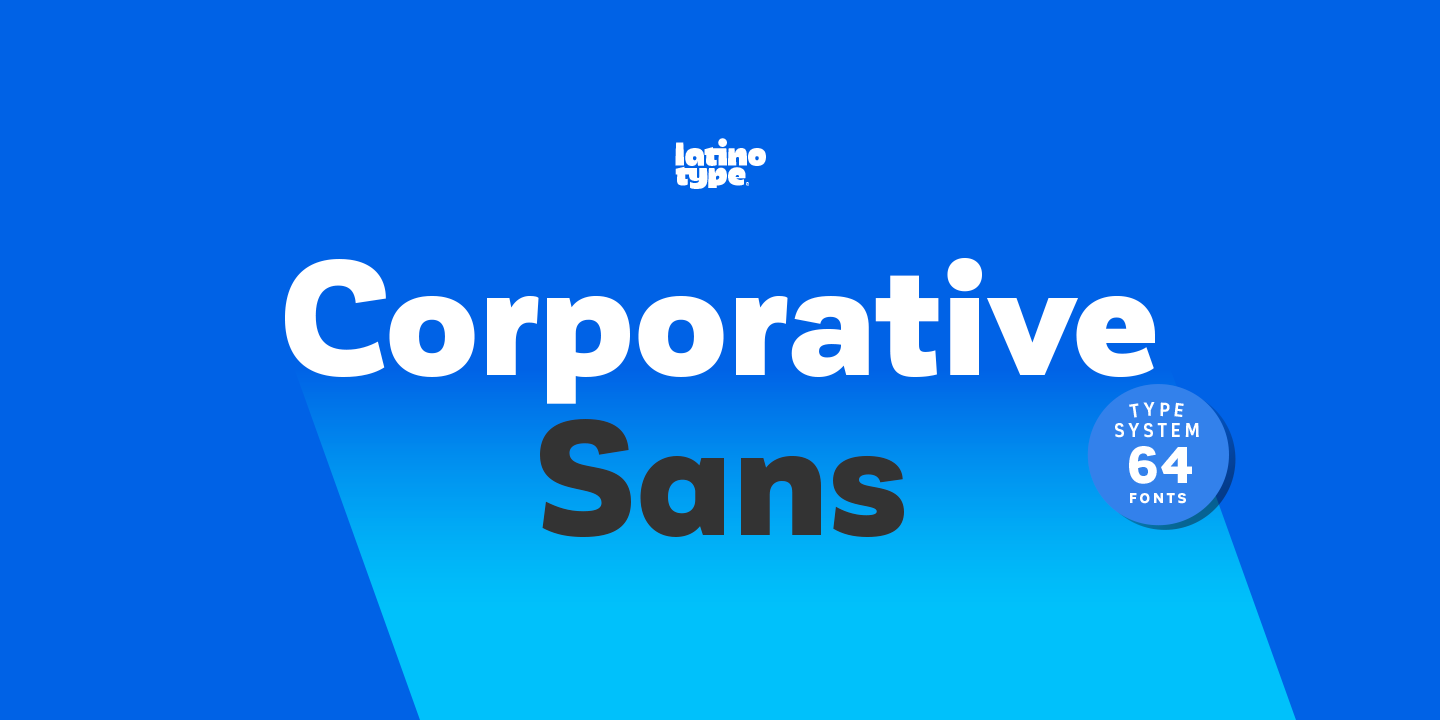
Corporative Sans Font is perfect for business communications, corporate identity systems, professional websites, company reports, executive presentations, financial statements, office signage, business cards, and official documentation. This clean, authoritative typeface brings trustworthiness, reliability, and professional excellence to any project requiring clear corporate communication and established business credibility.
What makes Corporative Sans Font exciting is its masterful balance of approachability and authority that builds instant trust and confidence. The font features carefully crafted letterforms with optimal legibility, consistent character spacing, and neutral personality that never overshadows the message while maintaining distinctive professional appeal. Its versatile design adapts seamlessly to any corporate environment, from conservative financial institutions to innovative technology companies.
The Corporative Sans Font family typically includes comprehensive weight ranges from light to bold, with matching italic variations for each weight. The complete family features extended character support, professional typography options including small caps, ligatures, and tabular figures for financial documents and data presentation.
Whether you're developing corporate brand guidelines or creating professional documentation, Corporative Sans Font Free Download delivers exceptional reliability and visual consistency. This typeface excels across all business applications, maintaining perfect readability in both digital interfaces and printed materials. Its corporate-focused design makes it ideal for organizations that need to project competence, stability, and professional expertise. The font's neutral yet distinctive character ensures clear communication while building brand recognition and establishing lasting business relationships through trustworthy visual presentation.